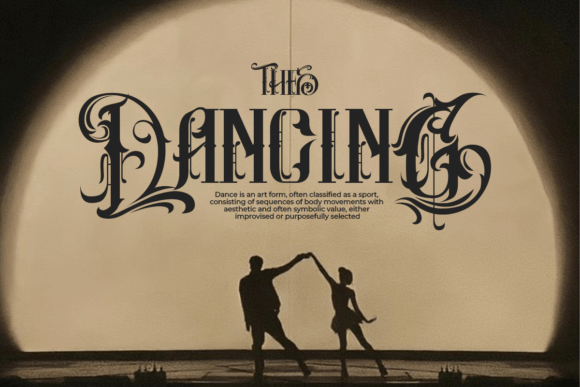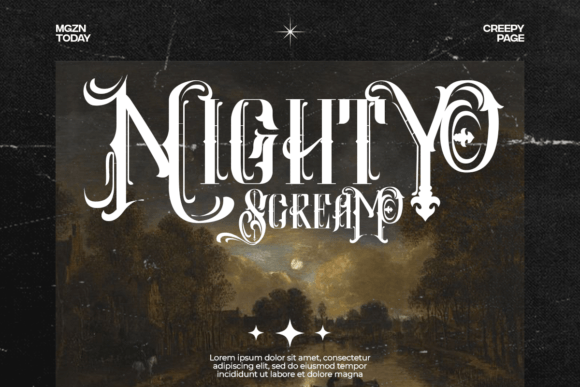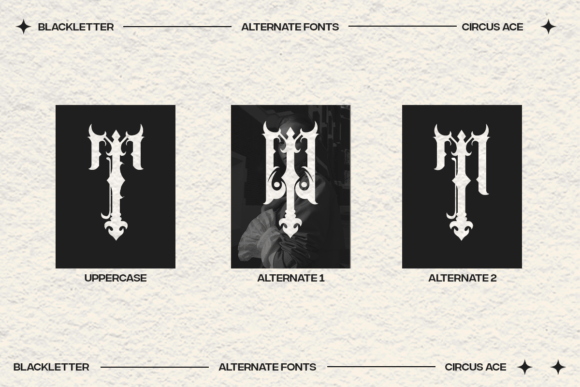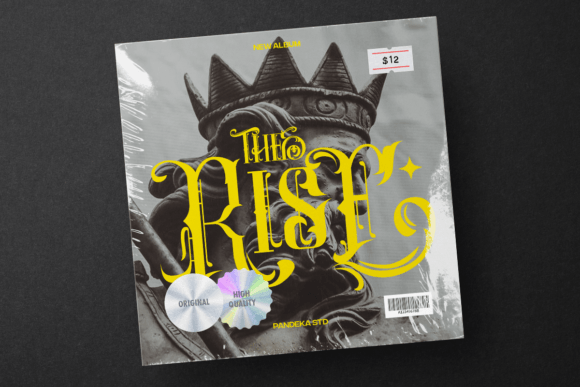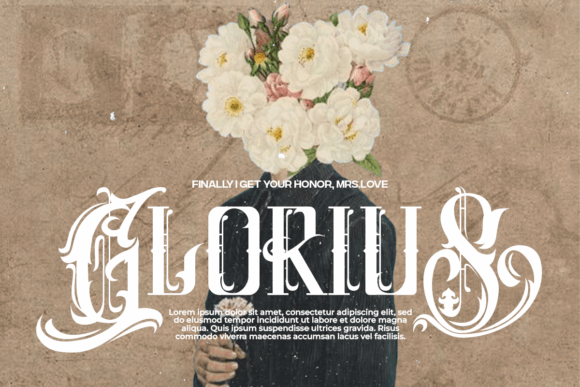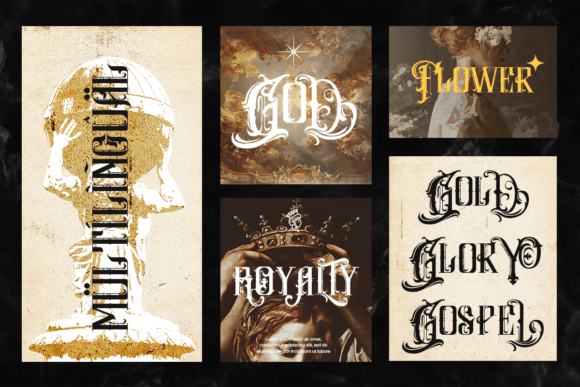
Circus Ace Font: A Modern Twist on Classic Blackletter Typography
In the world of typography, few styles evoke the sense of drama and intrigue that blackletter fonts do. With their bold, ornate, and often mysterious appearance, it’s no wonder that blackletter typefaces have been a staple of design for centuries. One font that brings a fresh perspective to this classic style is Circus Ace, a modern blackletter font that combines the best of traditional typography with a contemporary edge.
The Inspiration Behind Circus Ace
Circus Ace is a font inspired by the traditional blackletter typeface, but with a modern twist. Its creator aimed to craft a font that would retain the strength and uniqueness of classic blackletter, while infusing it with a modern impression. The result is a font that feels both timeless and cutting-edge.
Key Features of Circus Ace
So, what sets Circus Ace apart from other blackletter fonts? Here are a few key features that make it a standout:
- Alternative options: Circus Ace comes with a range of alternative characters, including swashes, ligatures, and alternative characters. This means that designers have a high degree of flexibility when working with the font, and can create unique and complex designs with ease.
- Strong and unique: Circus Ace has a bold, confident appearance that’s perfect for designs that need to make a statement. Its unique take on traditional blackletter typography ensures that it stands out from the crowd.
- Ease of use: Despite its ornate appearance, Circus Ace is surprisingly easy to use. Its well-designed character set and range of alternative options make it simple to create professional-looking designs, even for those without extensive typography experience.
Perfect for Dark or Strong Themes
Circus Ace is particularly well-suited to designs with strong or dark themes. Its bold, dramatic appearance makes it perfect for:
- Music album covers: Add a touch of drama and intrigue to your music album covers with Circus Ace.
- Tattoo logos: The font’s bold, striking appearance makes it ideal for tattoo logos and designs.
- Whiskey labels: Add a touch of sophistication and elegance to your whiskey labels with Circus Ace.
- Packaging design: Use Circus Ace to create eye-catching packaging designs for pomades, cosmetics, and other products.
Tips for Using Circus Ace
Here are a few tips for getting the most out of Circus Ace:
- Experiment with alternative characters: Don’t be afraid to try out the font’s alternative characters and swashes. These can add a unique touch to your designs and help you create something truly special.
- Play with contrast: Circus Ace looks great when paired with contrasting fonts or design elements. Experiment with different combinations to create visually striking designs.
- Keep it simple: While Circus Ace is a bold and dramatic font, it’s still possible to create simple and elegant designs with it. Don’t be afraid to strip back your design and focus on the essentials.
Circus Ace is a modern blackletter font that’s perfect for designers and crafters looking to add a touch of drama and intrigue to their designs. With its bold, unique appearance and range of alternative options, it’s an excellent choice for a wide range of design projects. Whether you’re creating music album covers, tattoo logos, or packaging designs, Circus Ace is sure to make a statement.